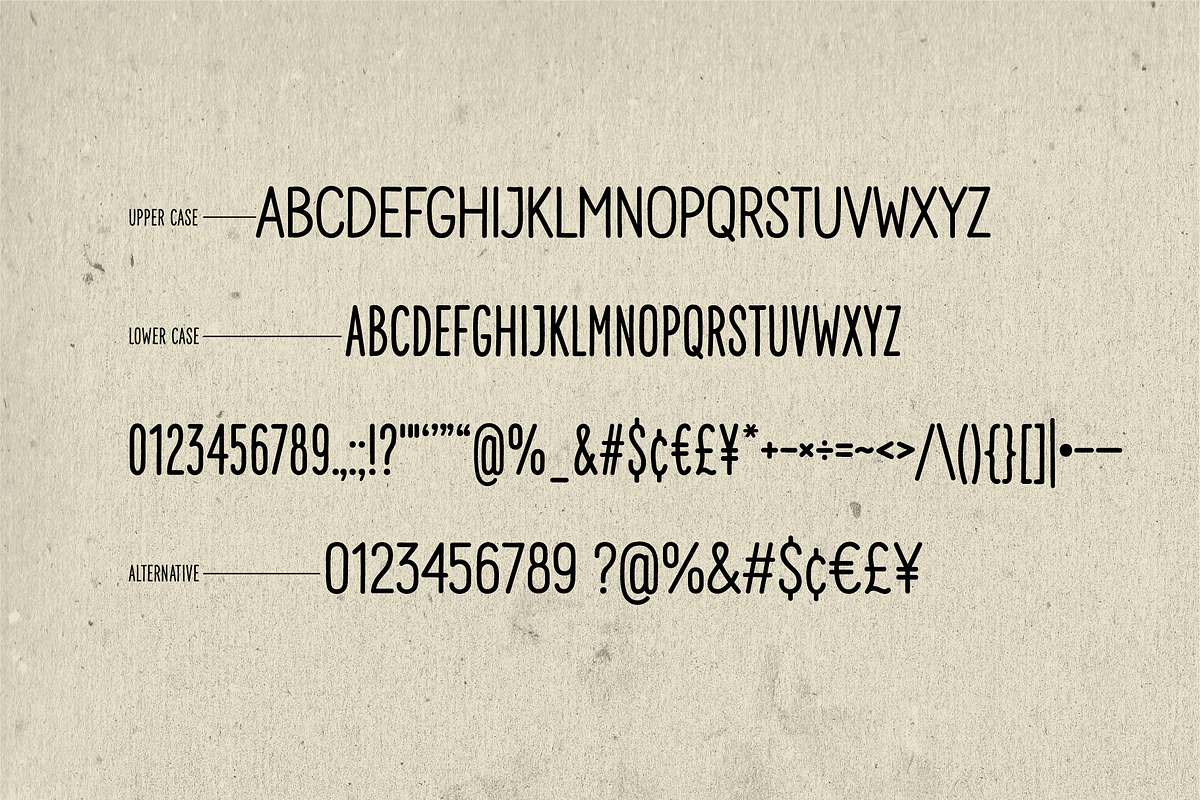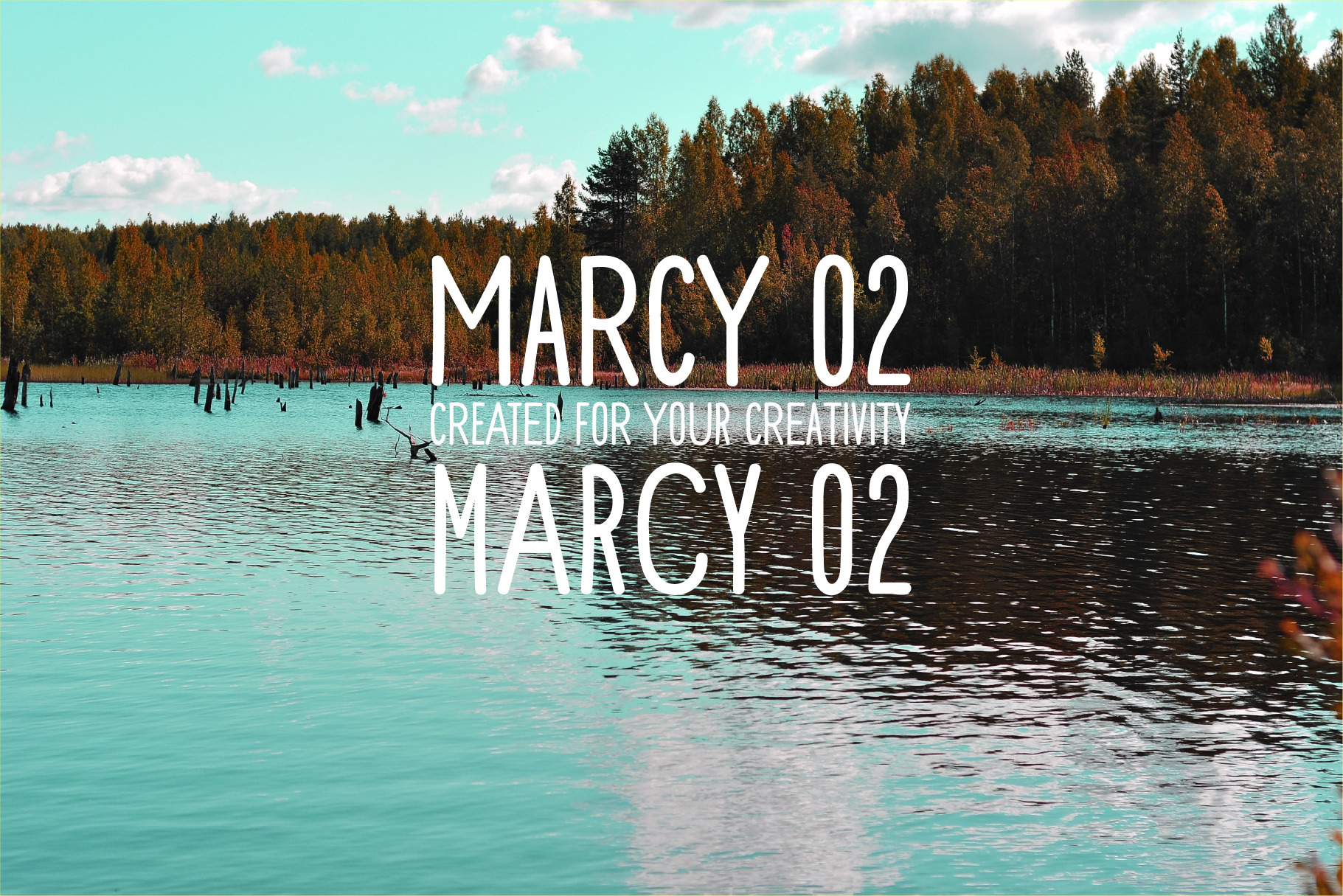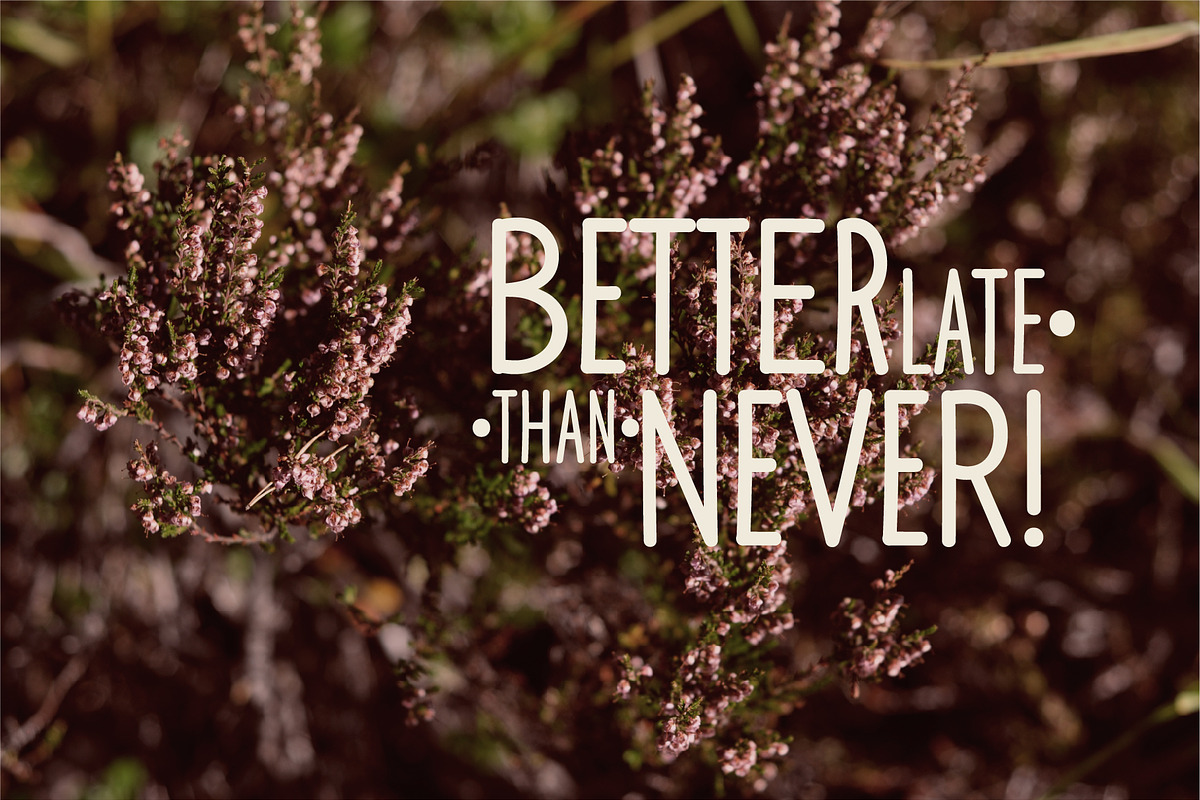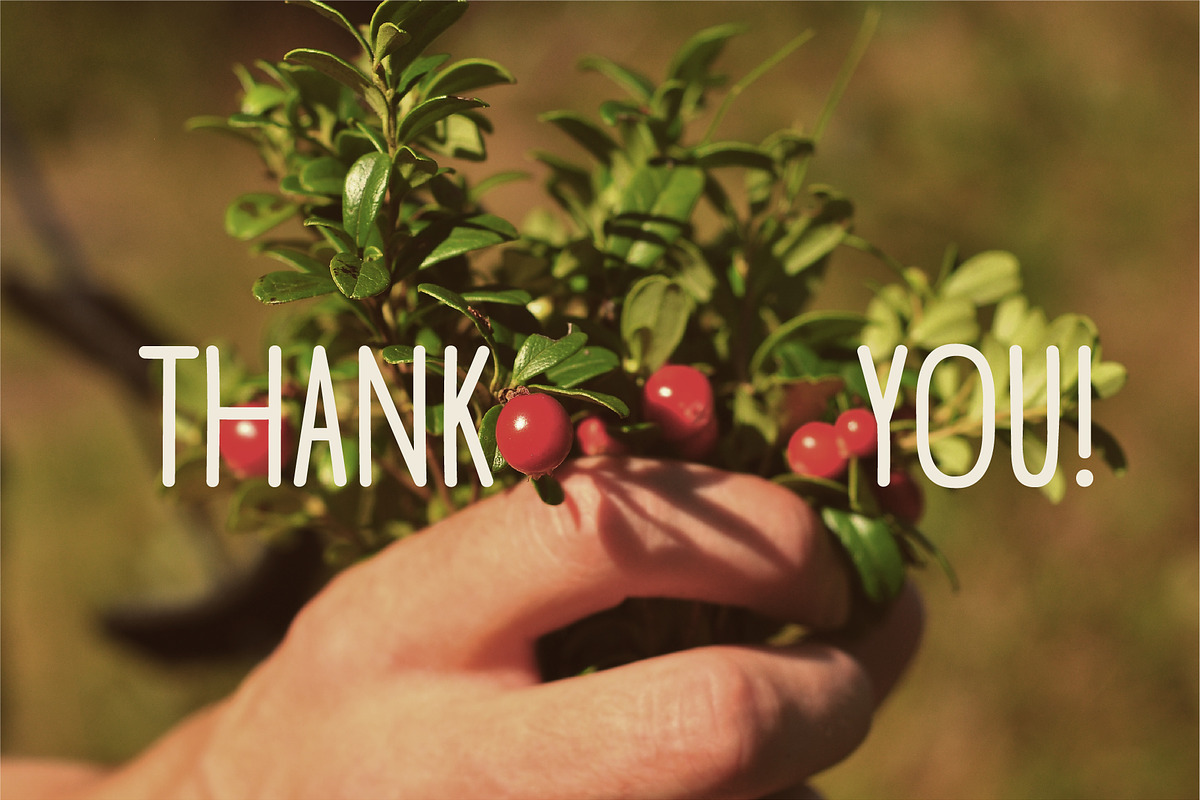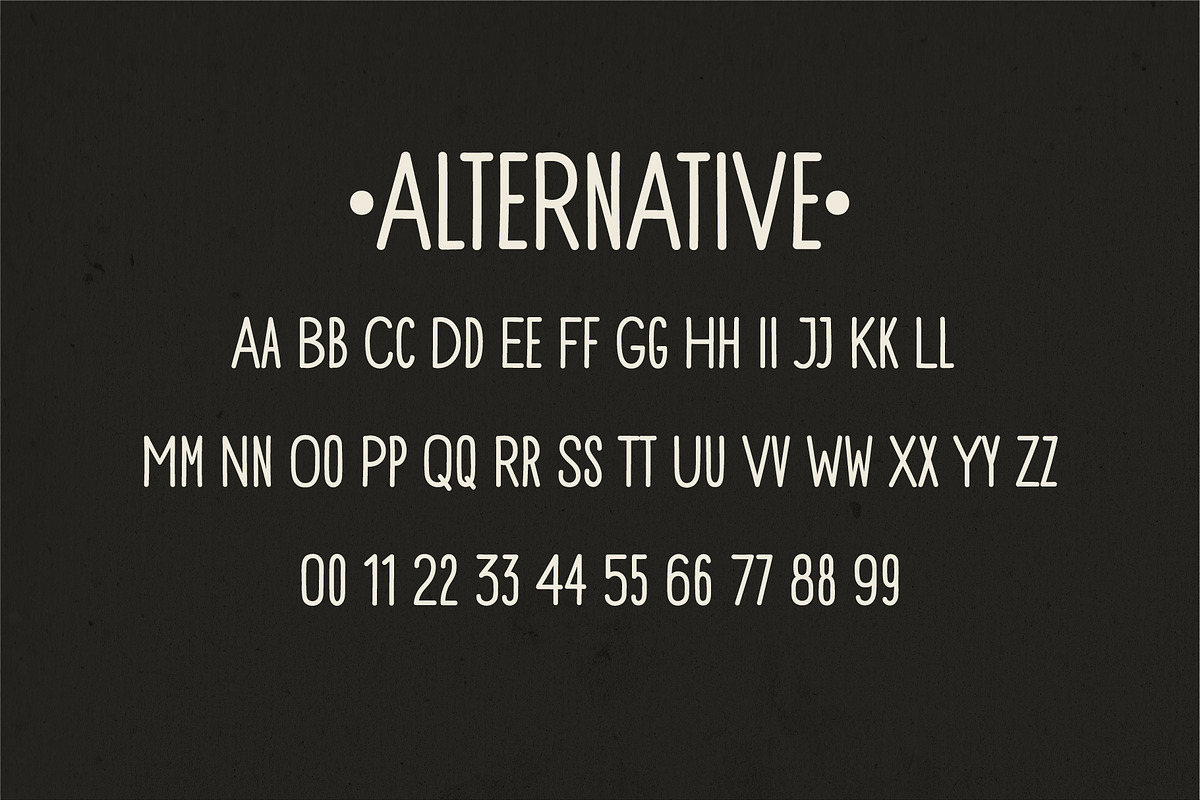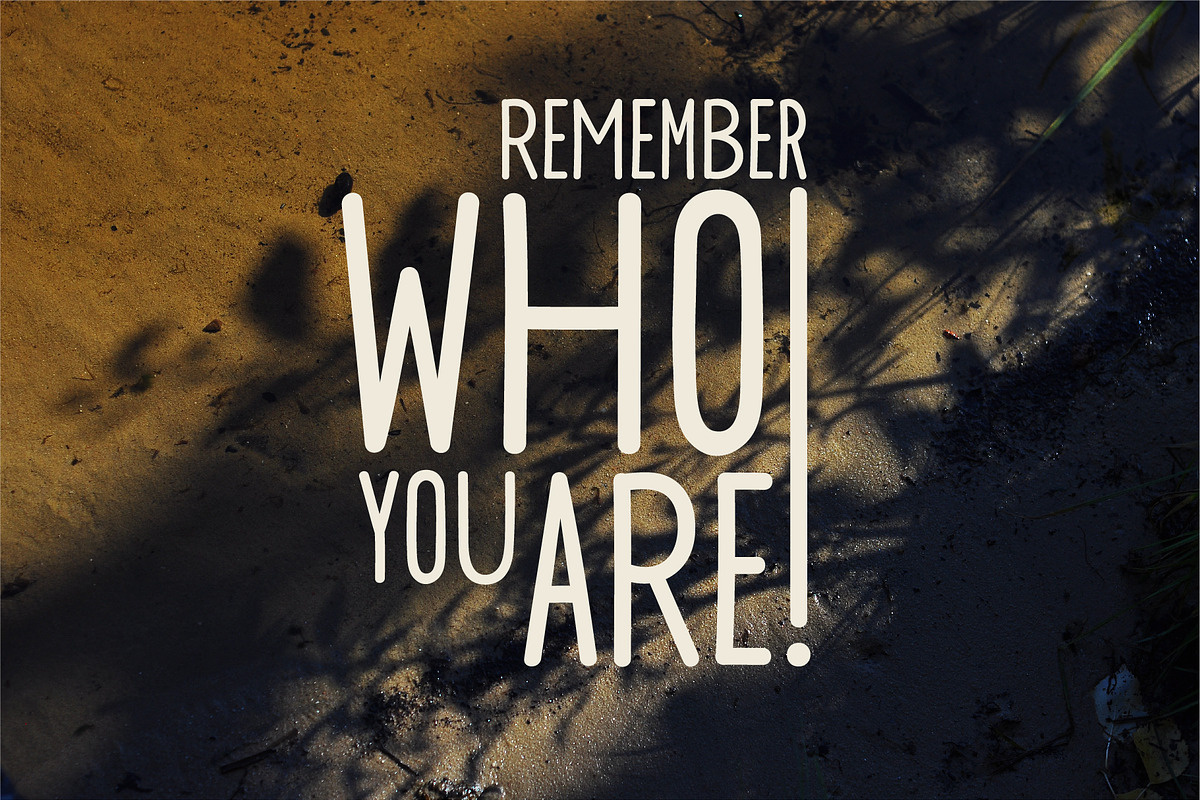
Marcy 02 • Font for creativity
Marcy 02 is a font created specifically for your creativity and design. The font is designed for large captions and headings. contains Capital letters of different widths. Wide letters in upper case and narrow letters in lower case. The Marcy 02 font allows you to create captions, titles, and various quotes. Using a combination of narrow and wide letters, you can create your own interesting lettering style.
This font does not contain the entire character table. It also includes alternative glyphs, such as numbers, currency signs, and others.